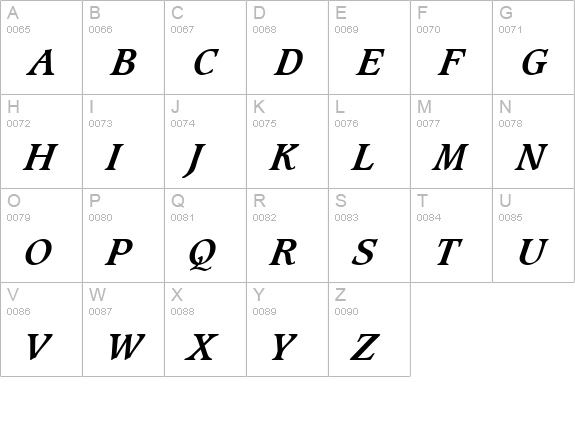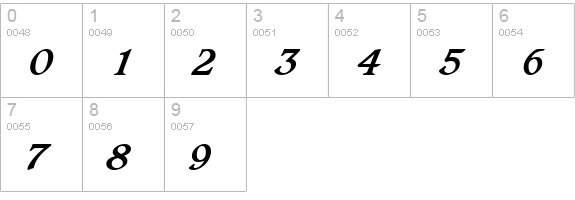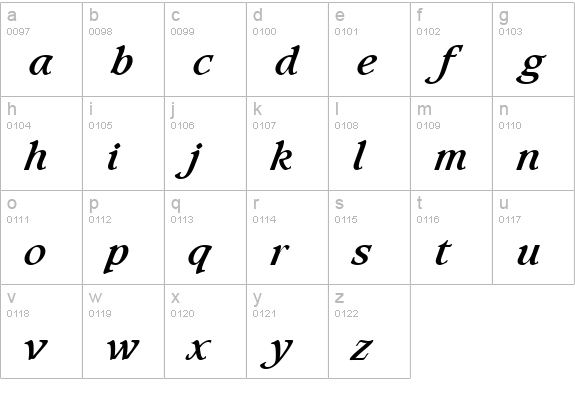
Caxton Bold Italic BT Font Details
Caxton Bold Italic BT is a strong, high-contrast, italic variant in the Caxton typeface family \xE2\x80\x94 well suited to headlines, attention-grabbing titles, and strong calls-to-action.
Caxton Bold Italic BT is a striking and dynamic font that exudes a sense of strength and sophistication. Its bold and italic design makes it perfect for adding emphasis and style to any project. The sharp lines and elegant curves of this font create a modern and stylish look that is sure to capture attention. What sets Caxton Bold Italic BT apart is that it is not only visually appealing but also versatile and easy to read. Whether used for headlines, titles, or body text, this font delivers a powerful impact that commands attention. Best of all, Caxton Bold Italic BT is available for free download at FontsMarket.com, making it accessible to everyone looking to enhance their designs with a touch of bold elegance. Don't miss out on this opportunity to elevate your projects with this stunning font.